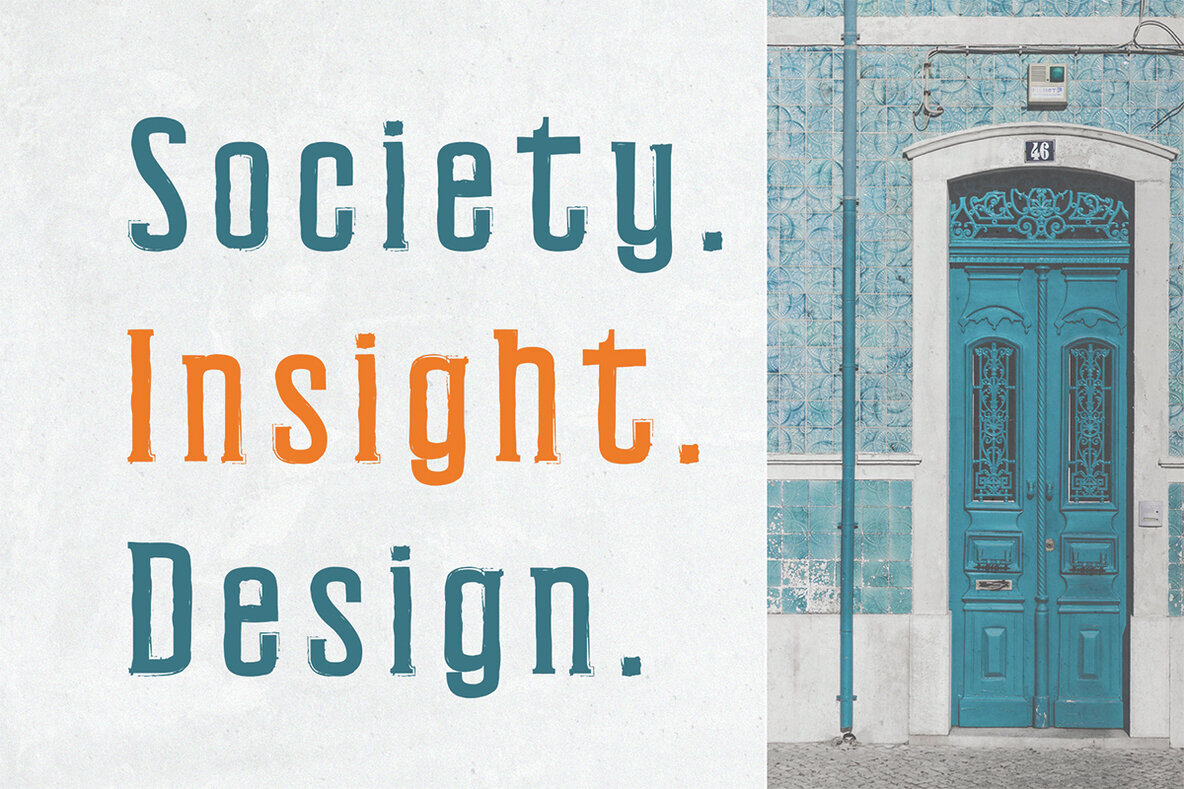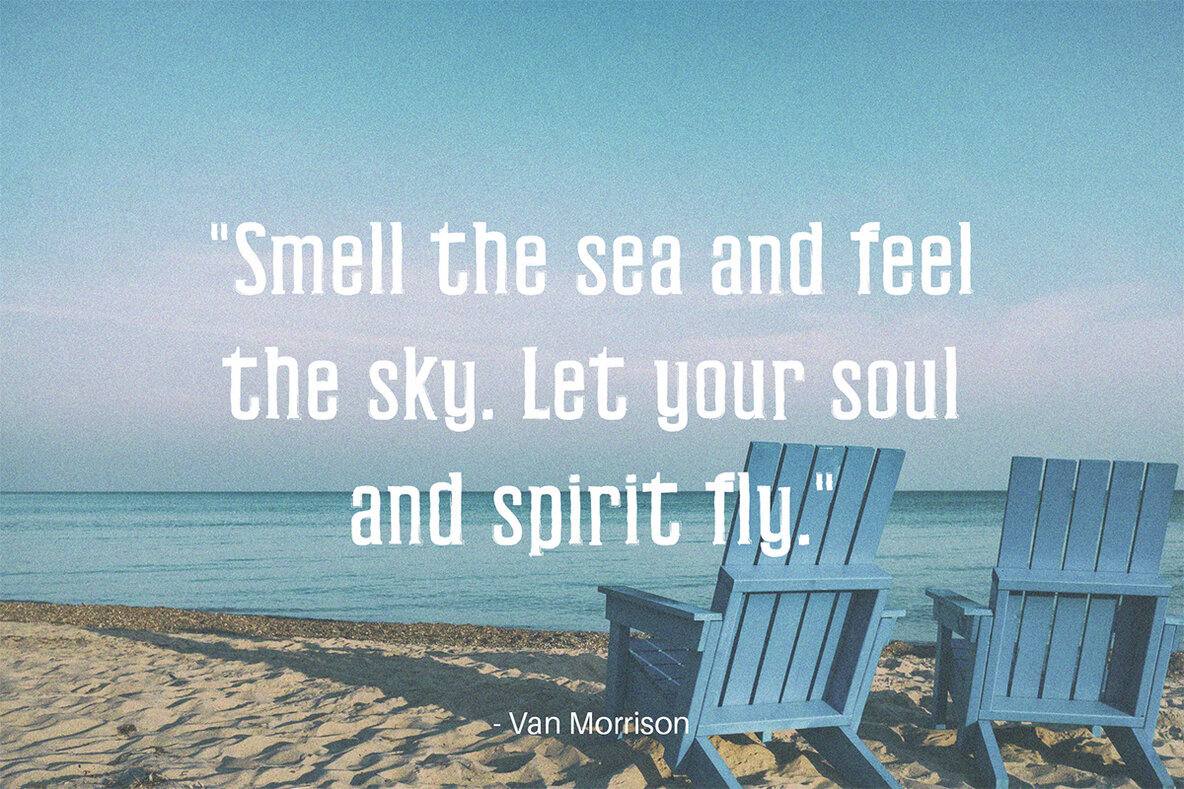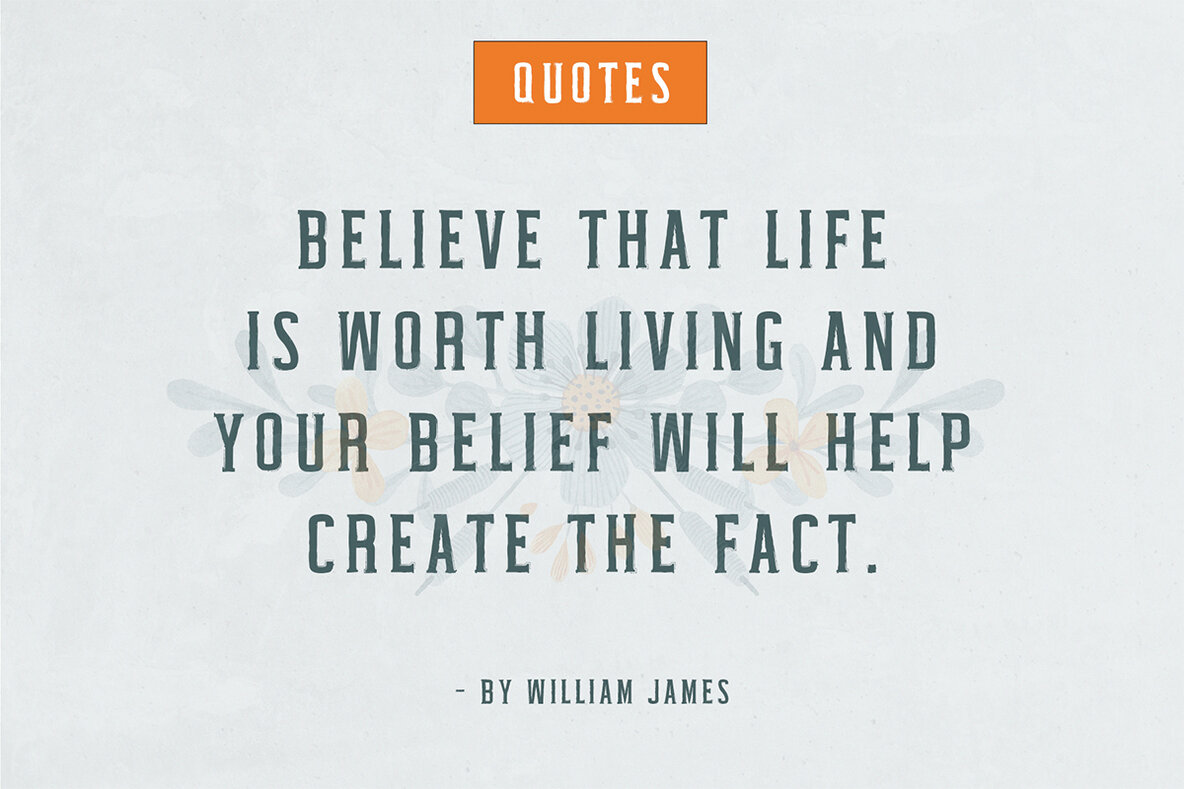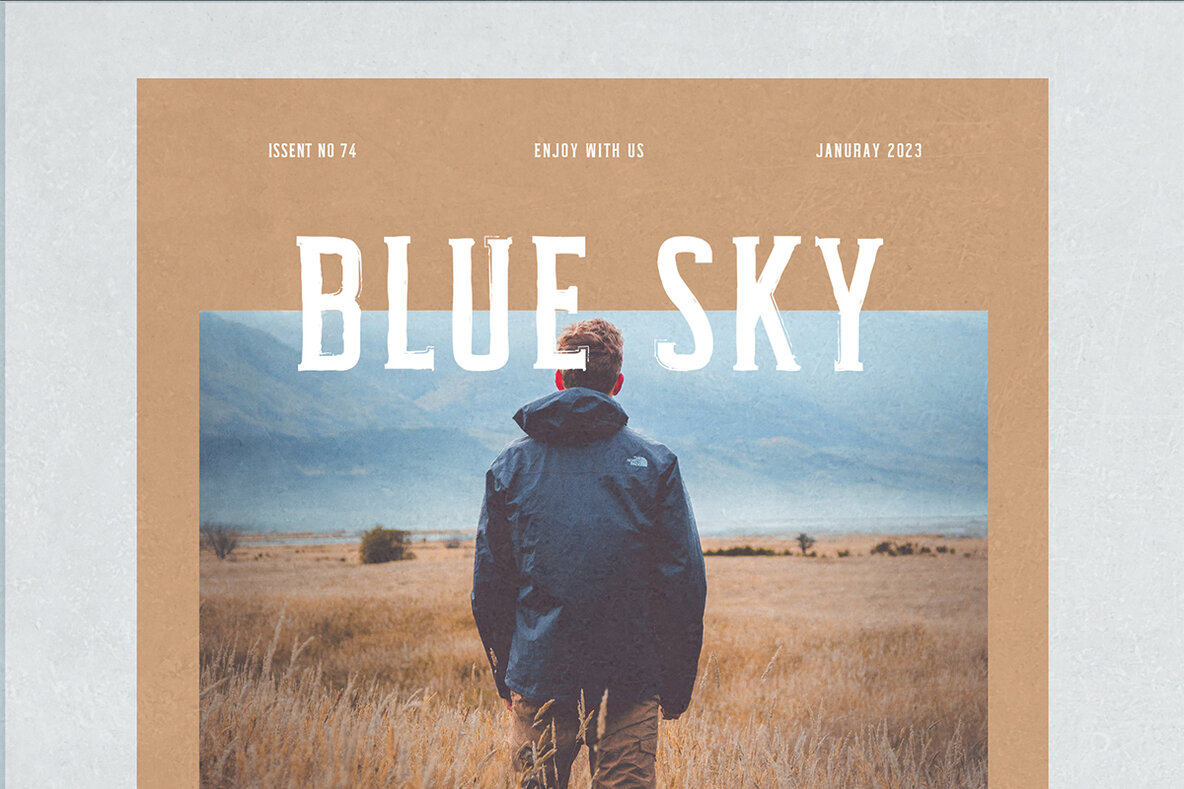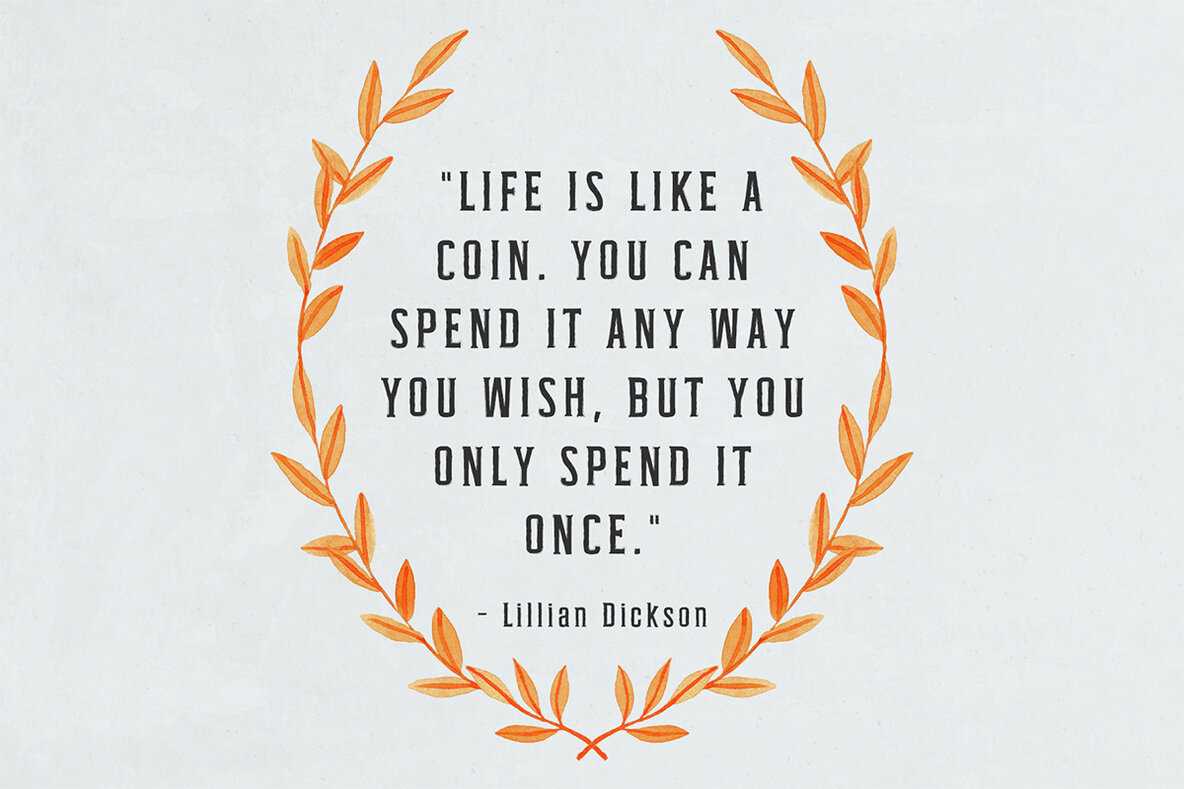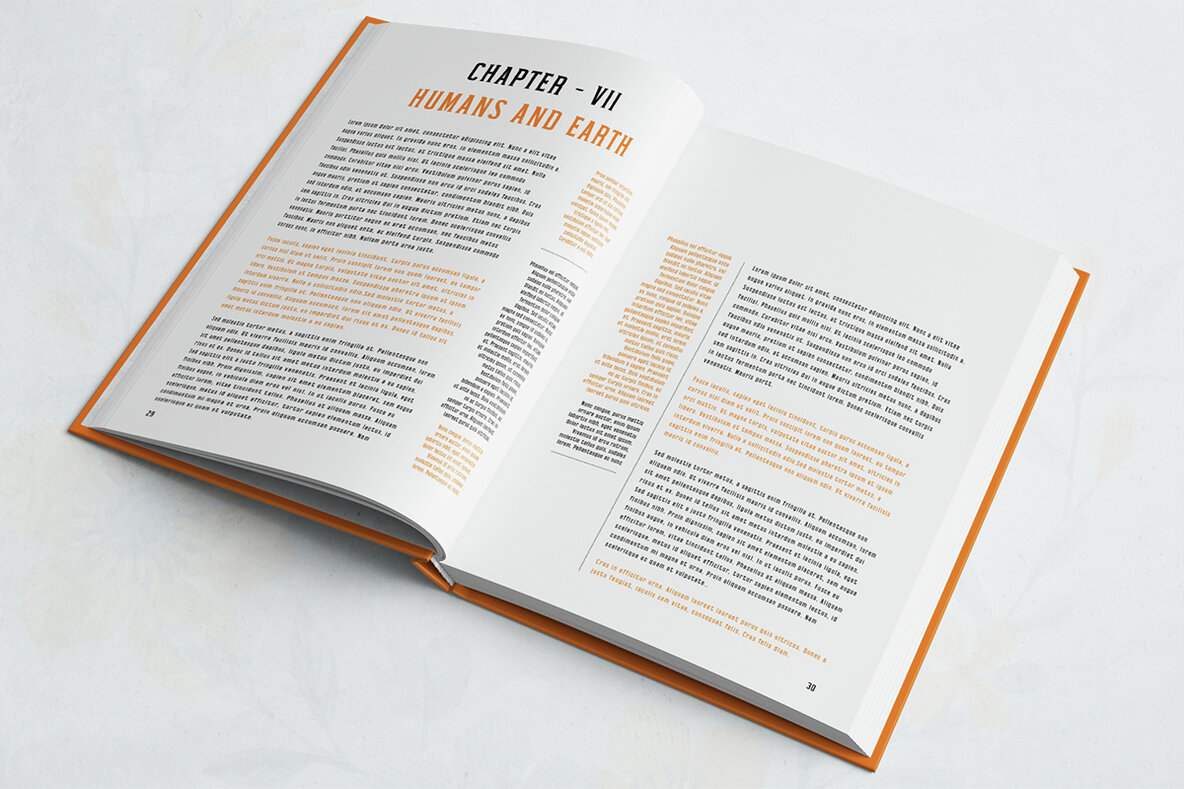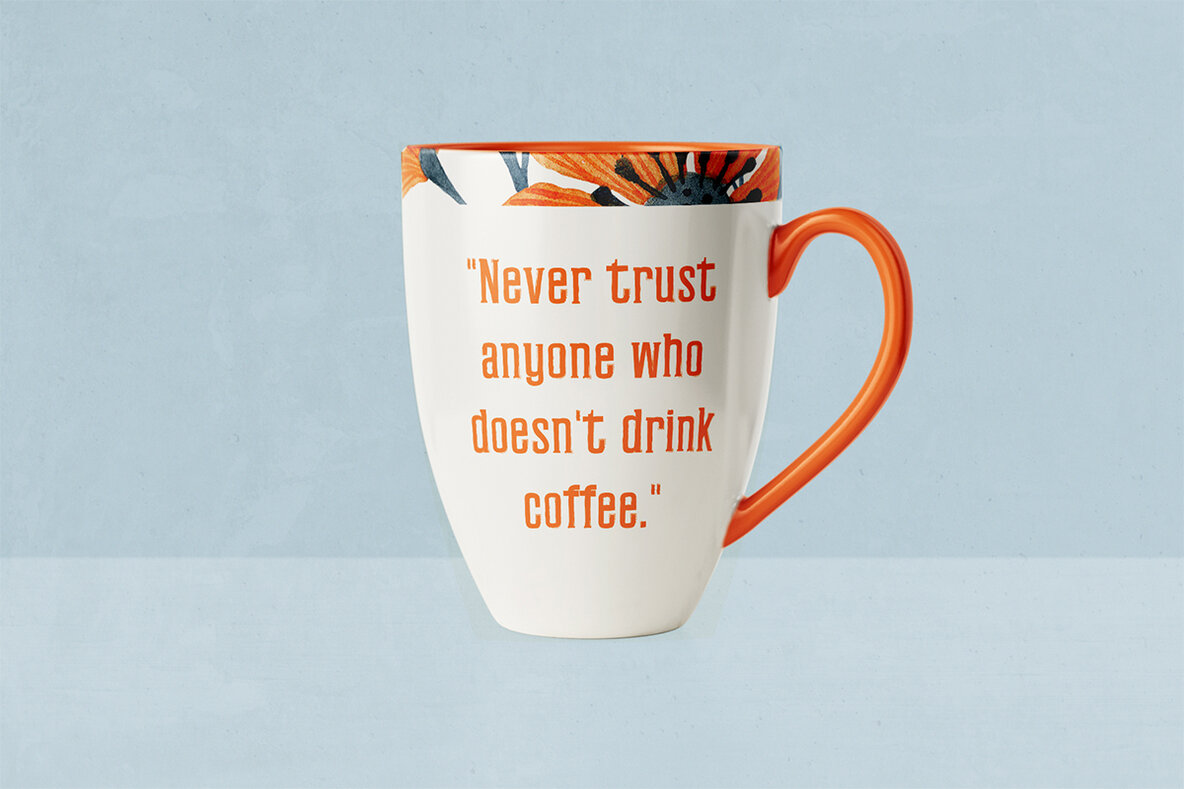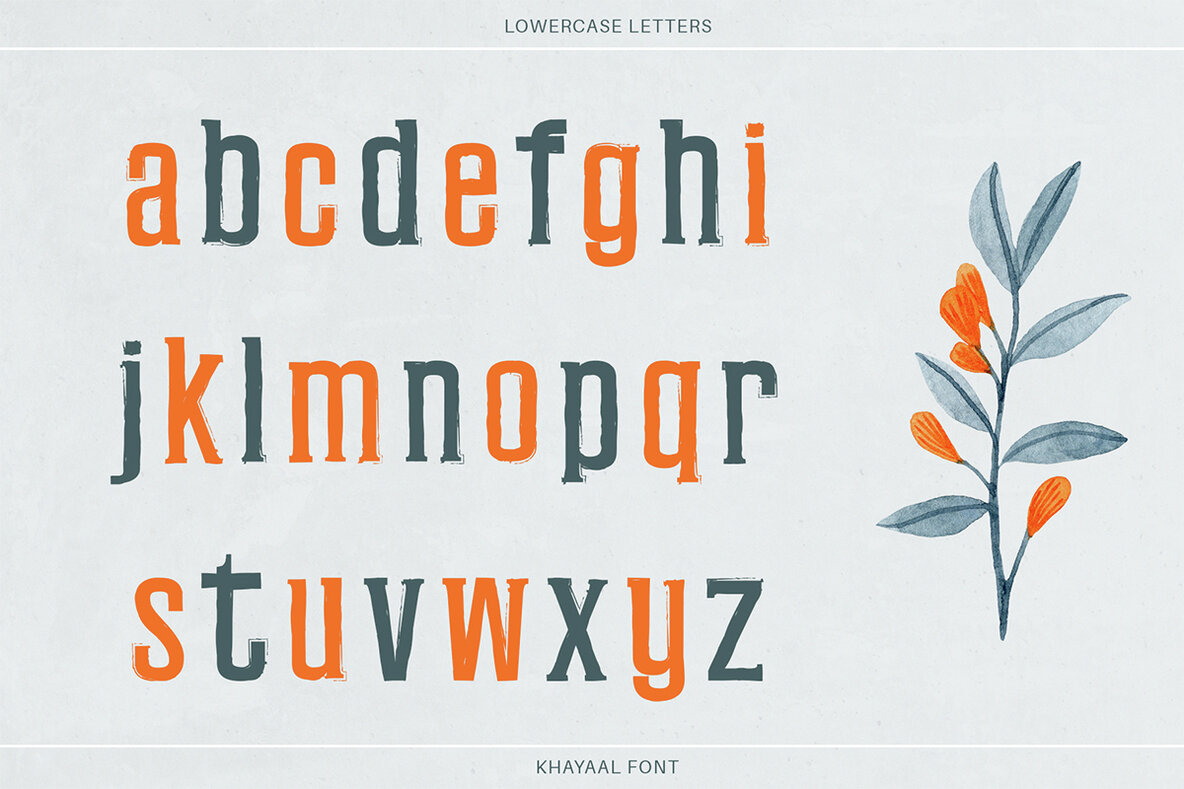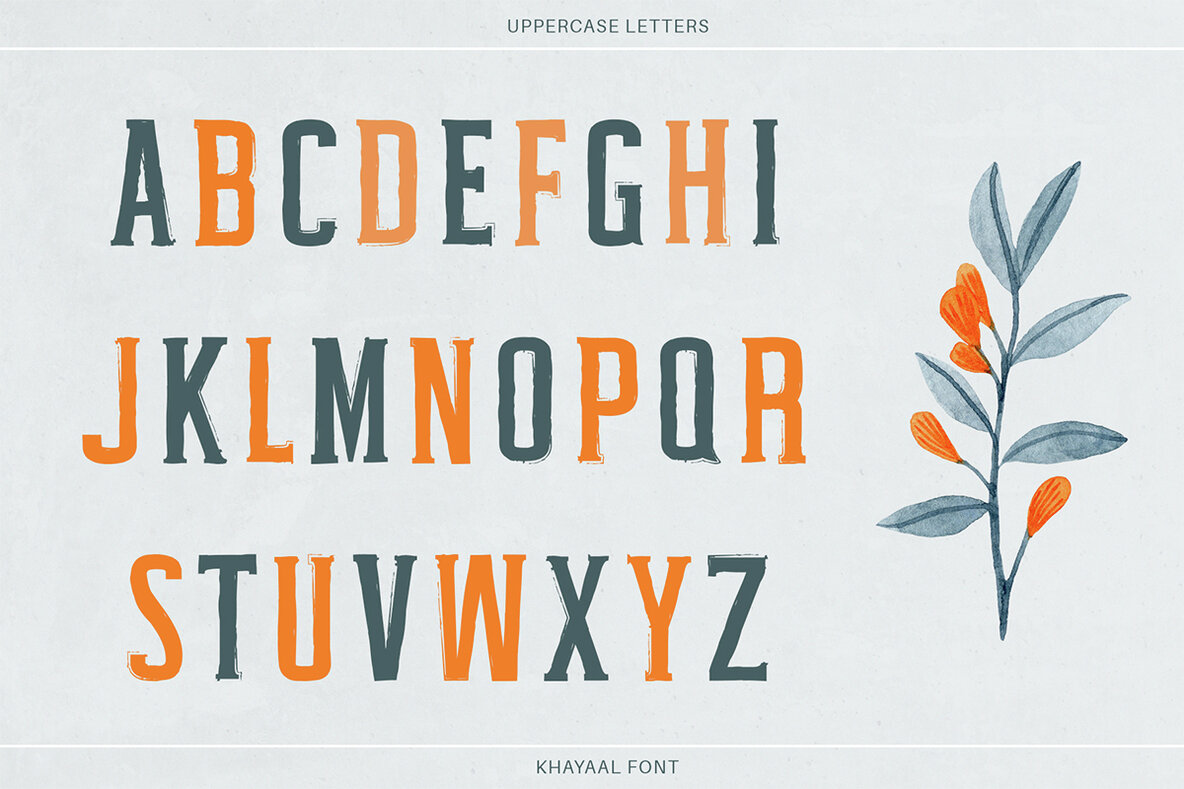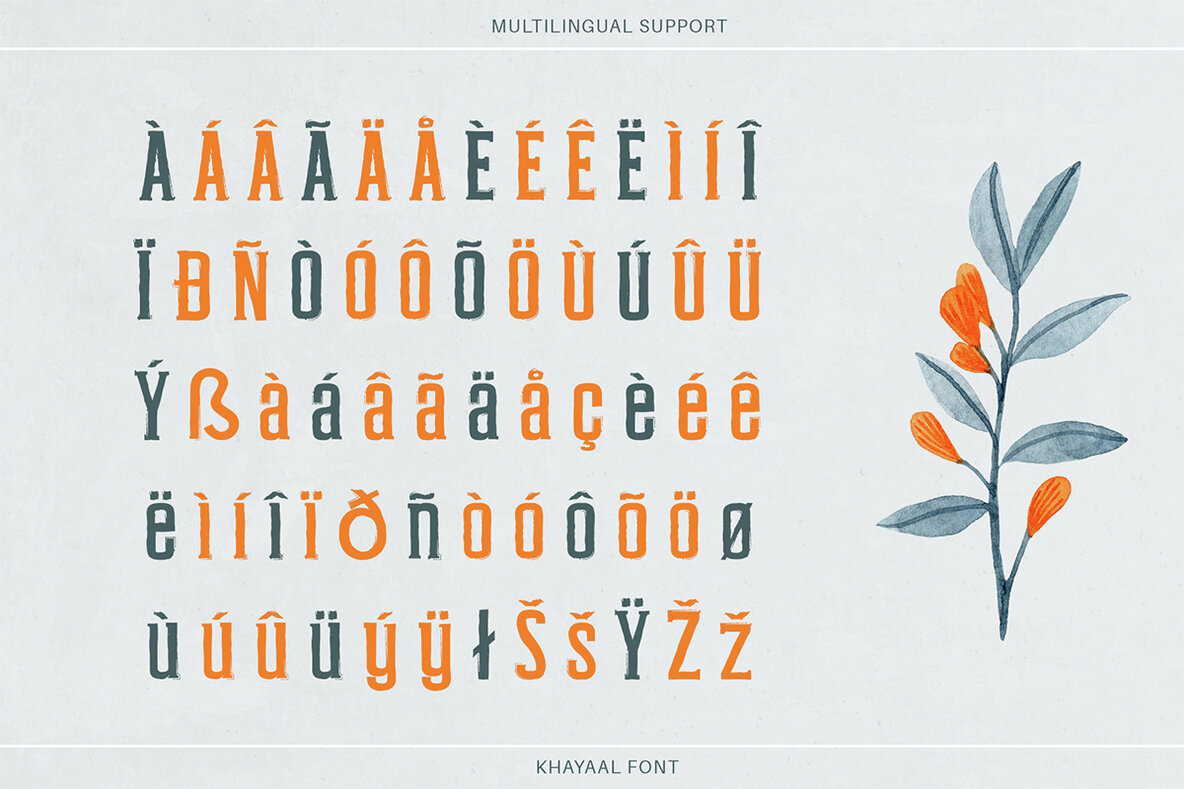
Khayaal Font
Khayaal Regular
Khayaal is a modern, cool, and sophisticated bold handcrafted font with beautifully balanced characters, perfect for enhancing your creative projects. This versatile display font includes a full set of uppercase and lowercase letters, numbers, punctuation, and symbols. Its clean and stylish appearance makes it ideal for a wide range of applications, from packaging and logos to web layouts and magazine headings.
The Khayaal font is designed with multilingual support, ensuring comprehensive versatility across different projects and languages. It includes an extensive array of supported characters, accommodating various design needs. Whether you're working on presentations, posters, branding, invitations, or advertising, Khayaal’s distinct and contemporary style will bring a bold yet refined touch to your work.